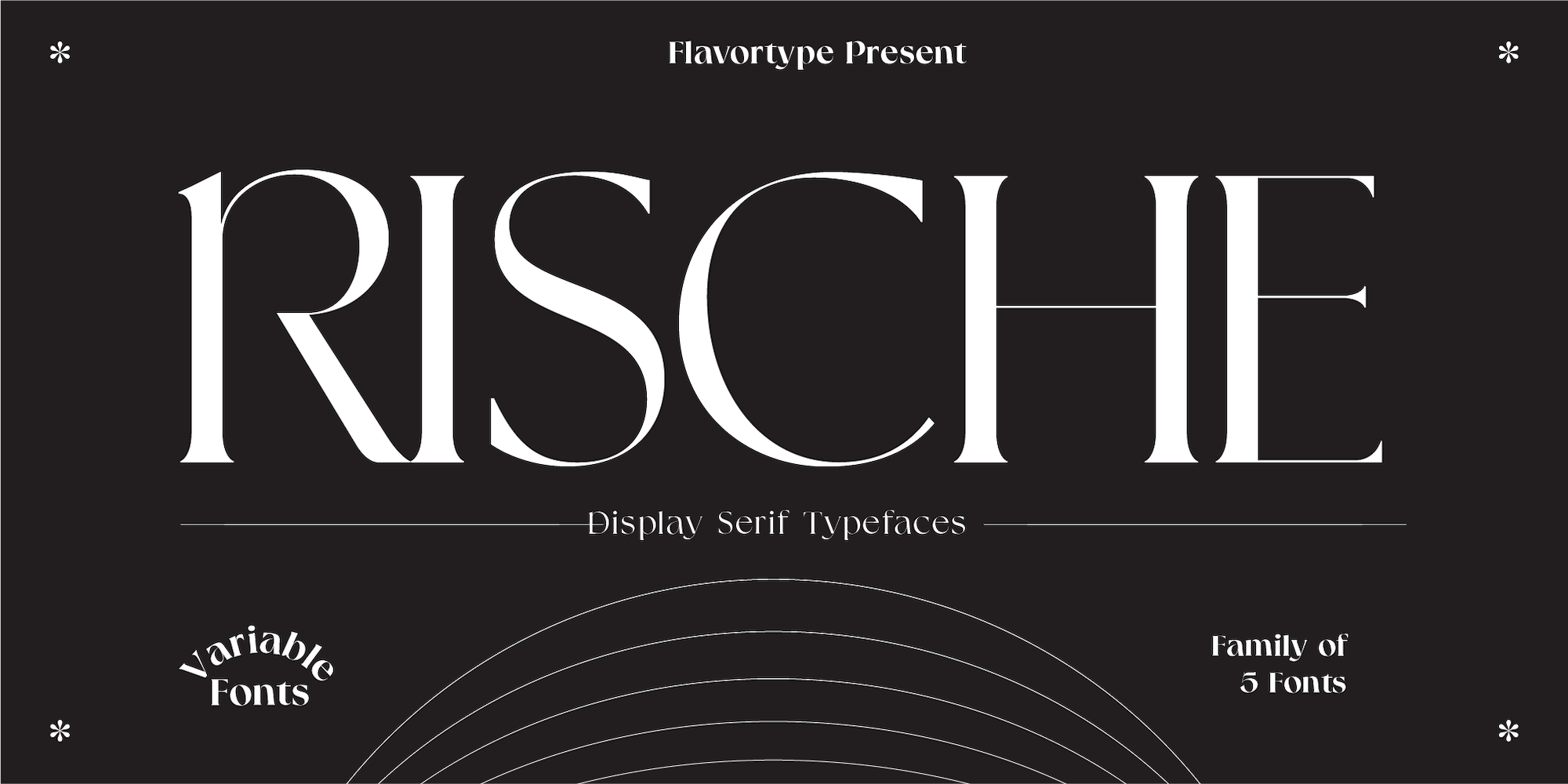
The Rische Font is perfect for luxury brand identities, premium product packaging, high-end magazine layouts, exclusive event invitations, sophisticated logo designs, upscale restaurant branding, elite fashion labels, and prestigious award ceremonies. This distinguished typeface excels in projects for luxury hotels, fine jewelry brands, premium automotive companies, exclusive clubs, and affluent lifestyle businesses that require an air of exclusivity and refinement.
What makes the Rische Font exciting is its sophisticated blend of European elegance and contemporary luxury. The font features meticulously crafted letterforms with refined proportions and subtle aristocratic details that immediately convey wealth, status, and exclusivity. Its distinguished character and premium aesthetic create an instant association with quality craftsmanship and luxury living. The font's inherent sophistication and timeless appeal make it perfect for brands targeting discerning, affluent audiences who appreciate fine design and exceptional quality.
The Rische Font family includes luxurious variations: Regular, Light, Bold, Italic, Display, and Ornamental versions. Each style maintains the font's premium character while offering different levels of visual impact and design versatility. The family also features elegant swashes, luxury ligatures, and exclusive decorative elements that enhance high-end design projects.
Whether you're developing premium brand identities, creating luxury marketing materials, or designing exclusive promotional campaigns, the Rische Font Free Download delivers unparalleled sophistication for projects requiring elite-level typography. This exceptional typeface transforms standard text into luxury statements, making it an indispensable tool for designers working with high-end brands and affluent market segments.